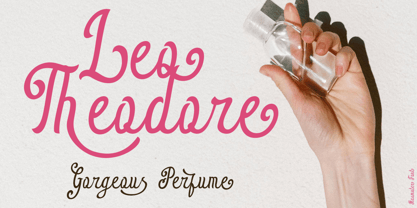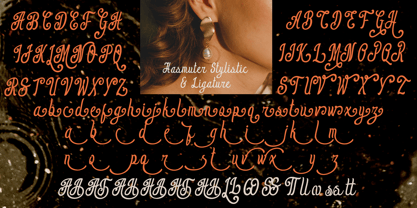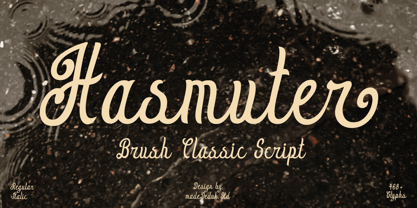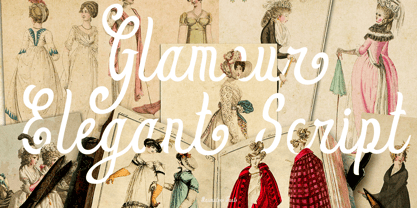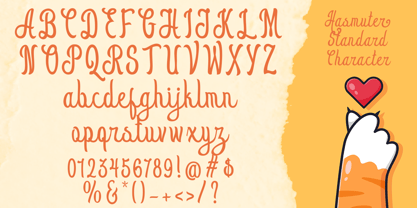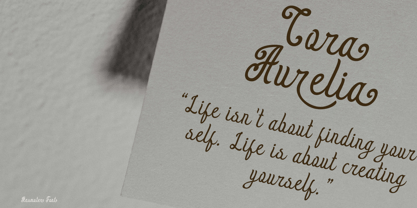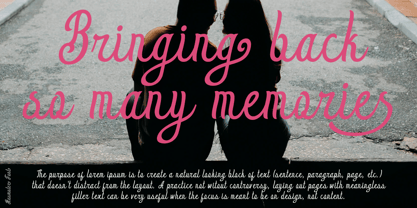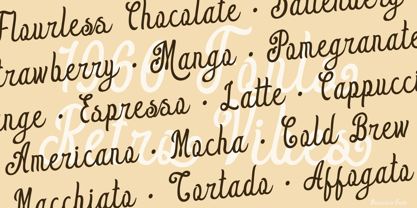
Hasmuter
by madeDeduk
The Hasmuter Font Family was designed by madededuk and published by madeDeduk. Hasmuter contains 2 styles and family package options.
Hasmuter embodies the charm of 70's retro style, offering a unique blend of elegance and nostalgia. This script font features smooth curves and sleek lines, making it an ideal choice for a variety of design applications. Its graceful aesthetic enhances branding, product packaging, invitations, quotes, headlines, labels, posters, and logos. The versatility of this font allows for creative combinations, creating a rhythmic flow that ensures comfortable reading while adding a refined touch to any project.